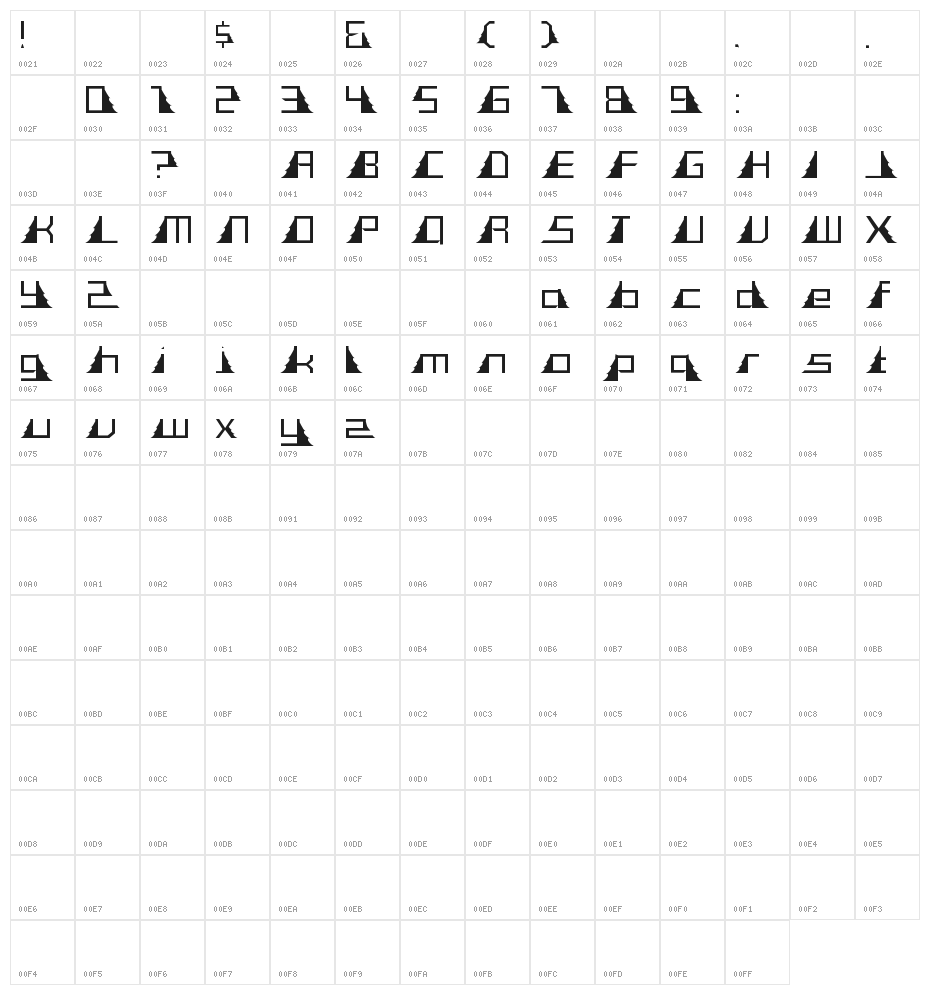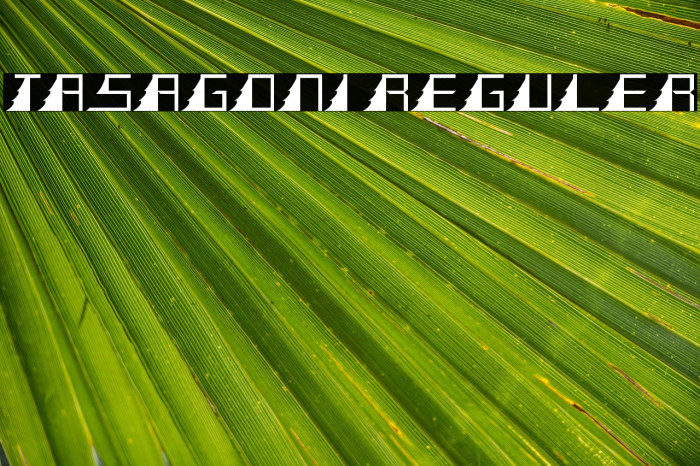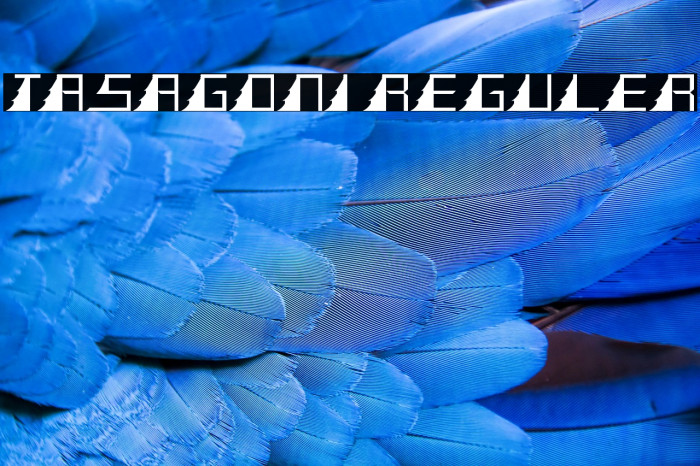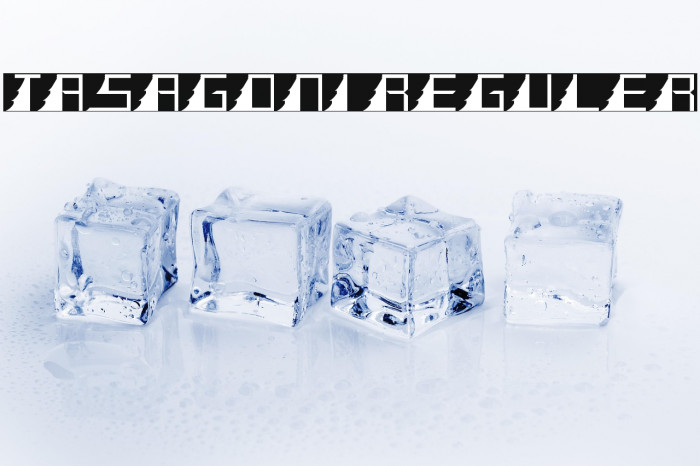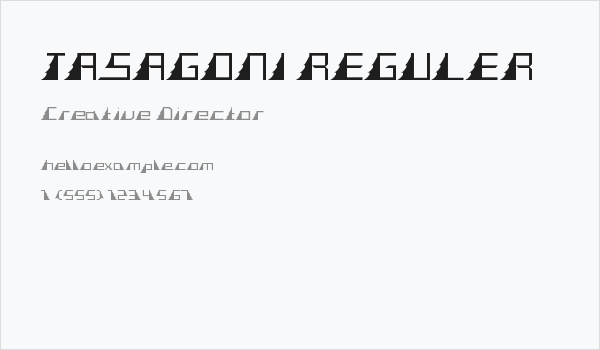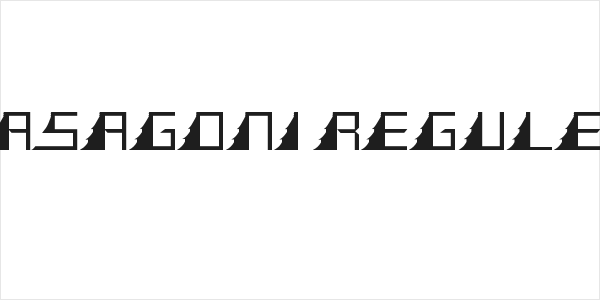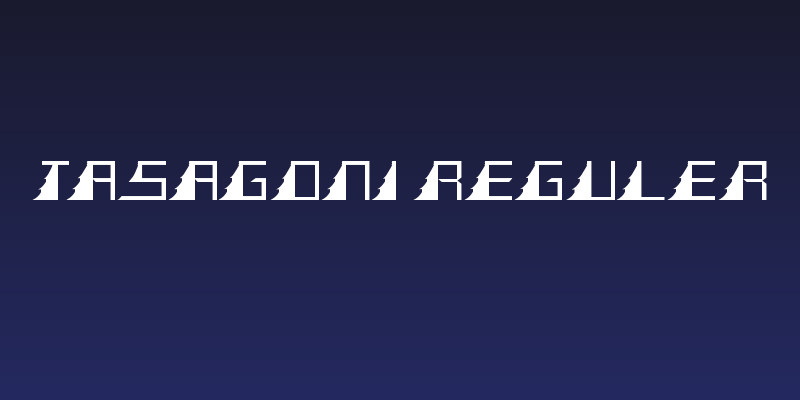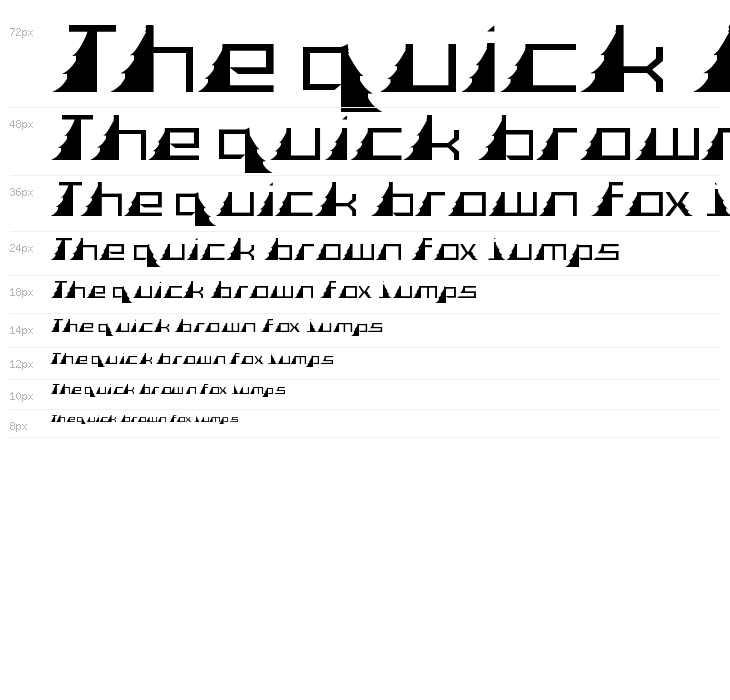
TASAGONI REGULER Font
TASAGONI REGULER Description
This font features a highly geometric and angular design, characterized by sharp, triangular cuts and a bold, edgy appearance. The letters are constructed with a series of straight lines and sharp angles, giving it a futuristic and modern feel. The uppercase and lowercase letters maintain a consistent style, with the lowercase being slightly more compact. Numbers and special characters follow the same angular theme, ensuring uniformity across all glyphs. The font's unique style makes it stand out, ideal for projects that require a distinctive and eye-catching typeface.
| Proposed Projects | Suitable for sci-fi themed projects, modern branding, video game titles, and tech-related designs. |